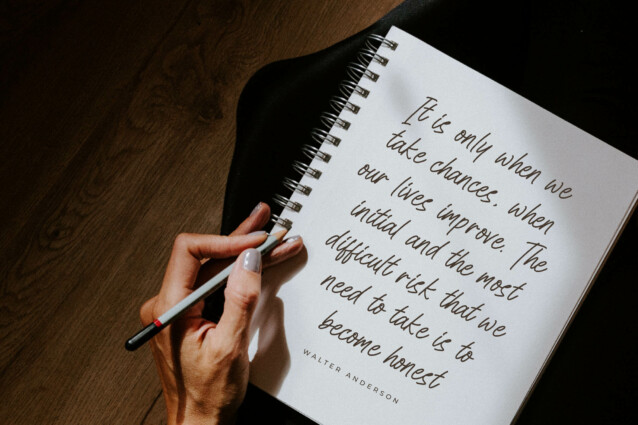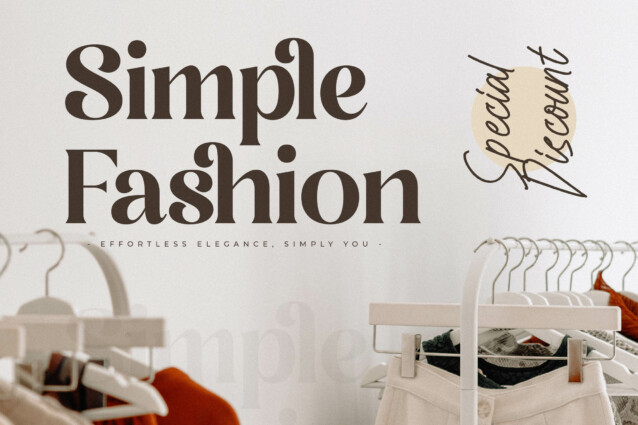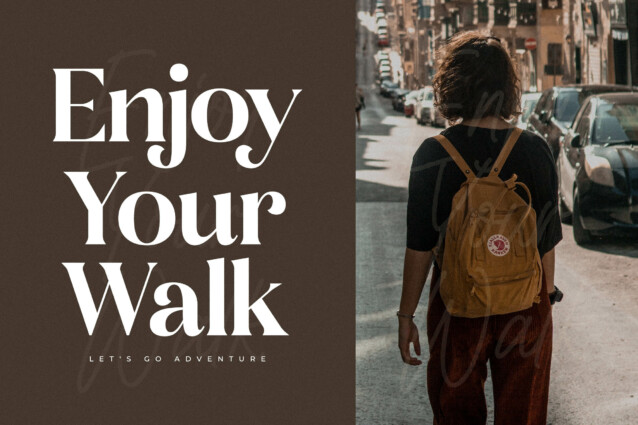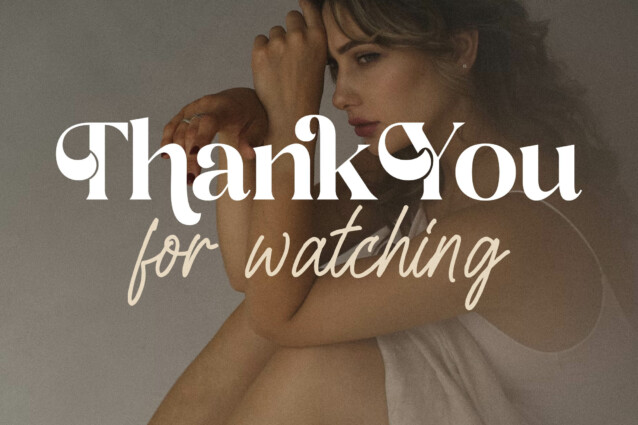
Blissful Heartlight Font is a serif and script typeface that has own unique style & modern look. This typeface is perfect for an elegant & luxury logo, book or movie title design, fashion brand, magazine, clothes, lettering, quotes, and so much more.